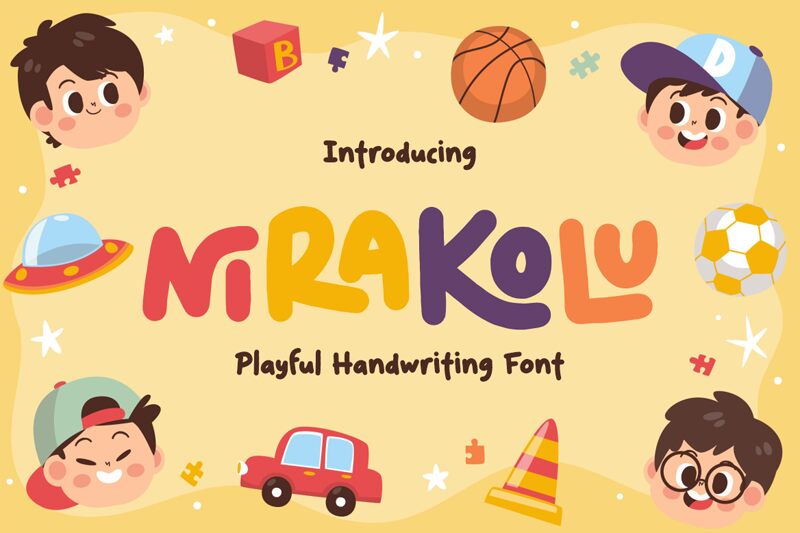
Nirakolu font family by PutraCetol Studio is a comic-styled friendly typeface that communicates a youthful and cheerful essence. Available for free for your personal use, the font contains a playful design style with a dynamic flow offering a lot of letter variety. The font is as approachable as any other comic font design, making it suitable for communicating to children and adults. Nirakolu is a modern-looking typeface relying on shapes with round edges and invisible friendly fillings that take your audience to a happy place.
The font is best used by its own or combined with a sans serif in posters, packaging labels, on the web, and for print. Advertise comic events to their fans with font posters, create a vibrant brand identity for products, present infographics about facts and/or history, and design outstanding logos that stay in the memory of your audience.